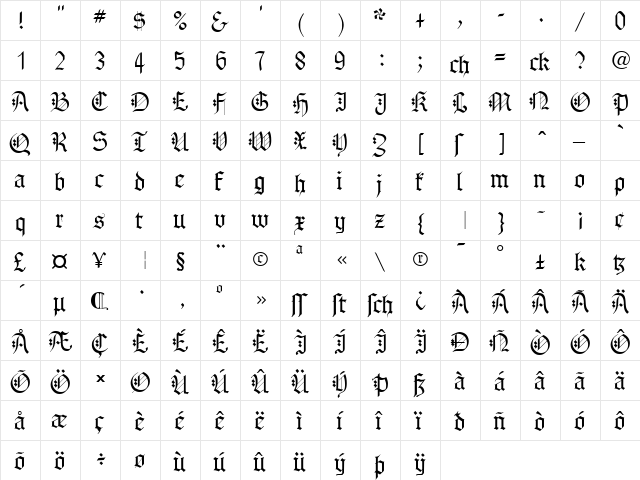
Gothenburg Fraktur Regular
Design Context for Gothenburg Fraktur Typeface
Gothenburg Fraktur draws on the rich tradition of blackletter calligraphy, with dense, angular strokes that evoke medieval manuscripts and old-world craftsmanship.
A natural fit for music packaging, gothic editorial design, and any project that needs historical weight.
Font Pairing: Pair with a clean neutral sans-serif for body copy to let Gothenburg Fraktur's character lead without overwhelming the composition.
Pro Tip: Reserve Gothenburg Fraktur for display and logo use — pair it with a clean sans-serif for body copy to prevent the composition from feeling oppressive.